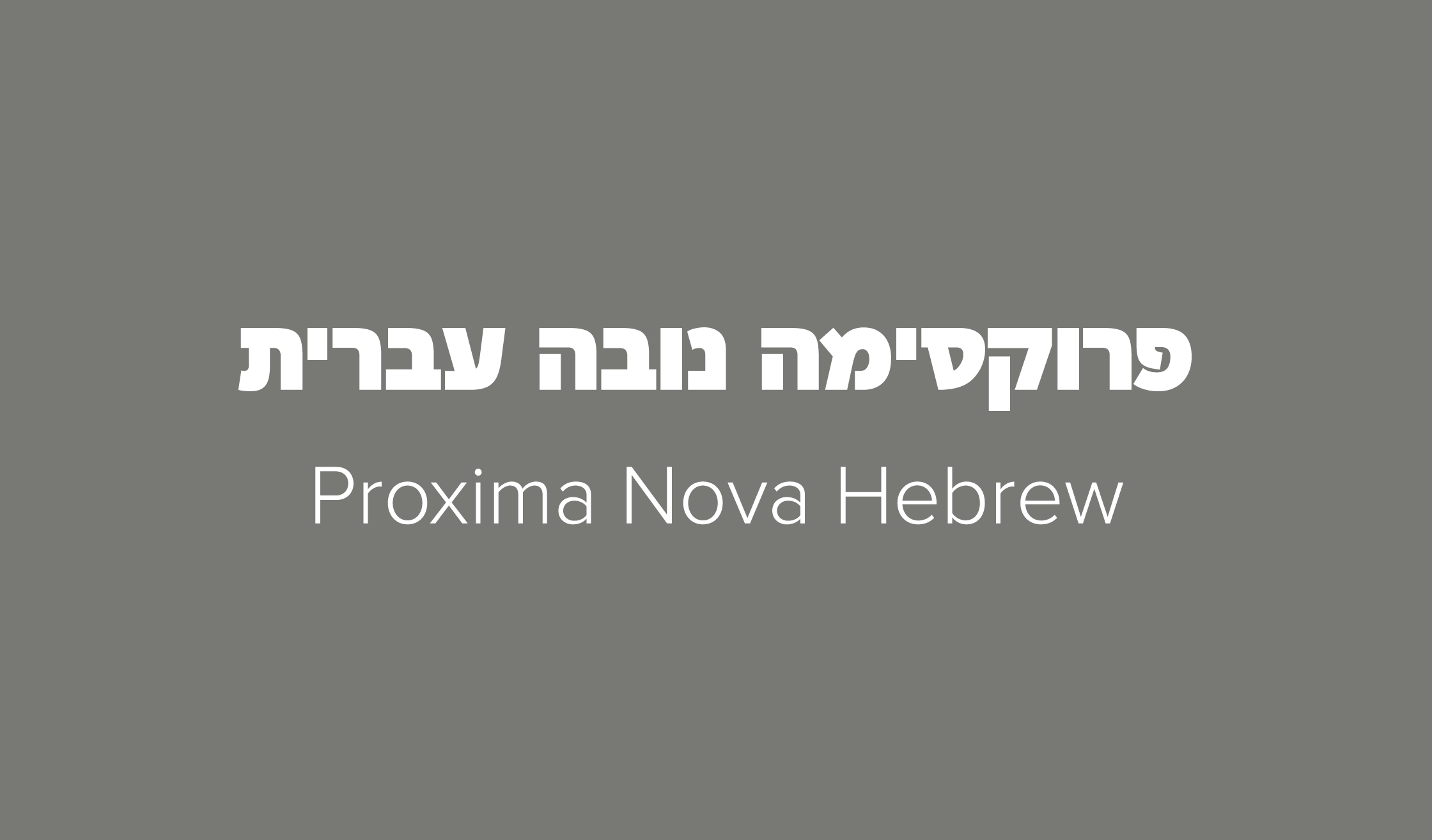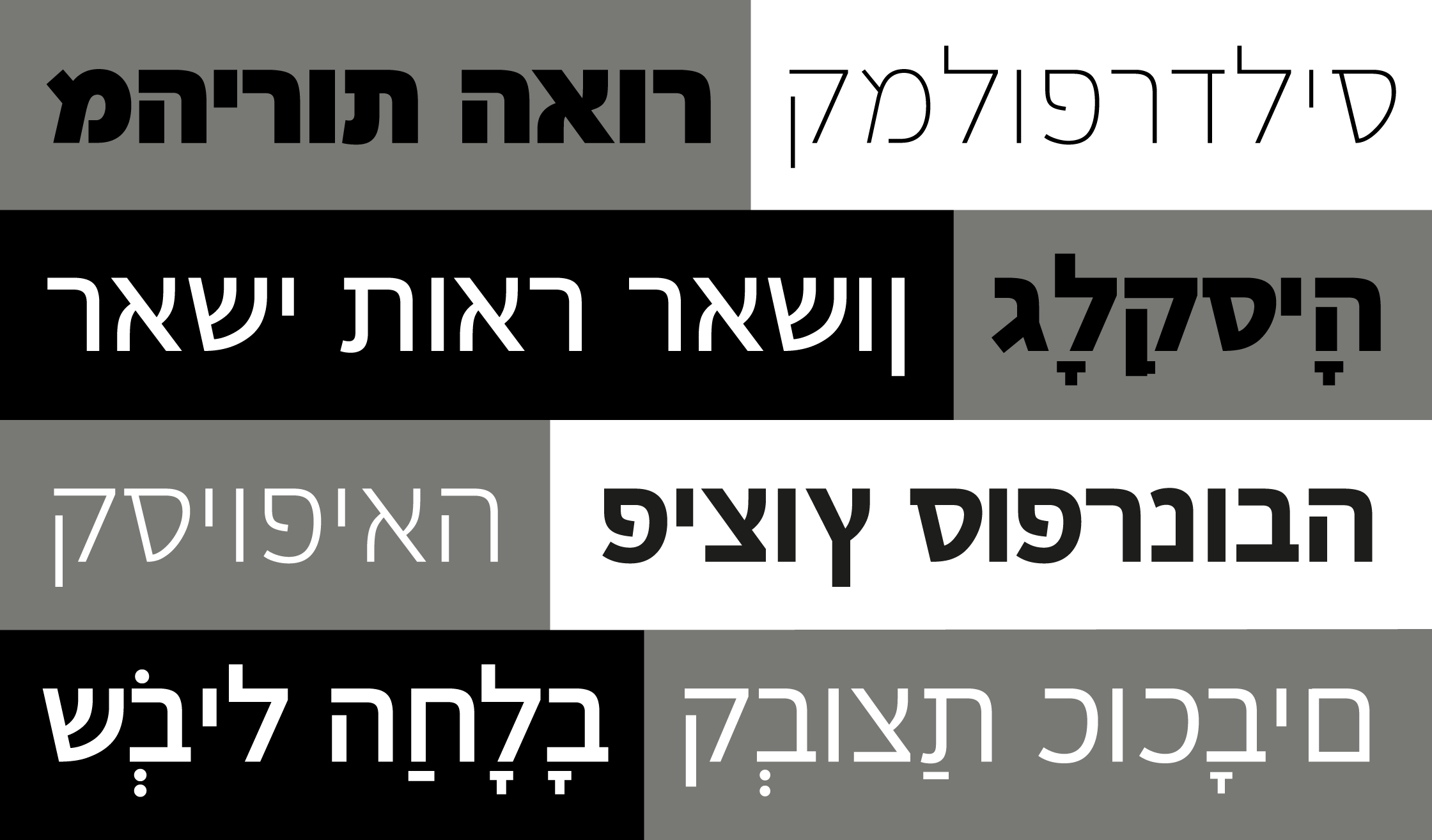
Proxima Nova Hebrew (2025) was designed by Pilar Cano and Ferran Milan of Letterjuice for Mark Simonson’s well-regarded Proxima Nova. Hebrew is more open and square than Latin, which means it can appear lighter without compensation. However, respecting the unique personality of Proxima Nova was important, so a balance was made to maintain uniformity and consistent typographic color. Available in eight weights — Thin to Black — this growing family is poised to become more popular worldwide.